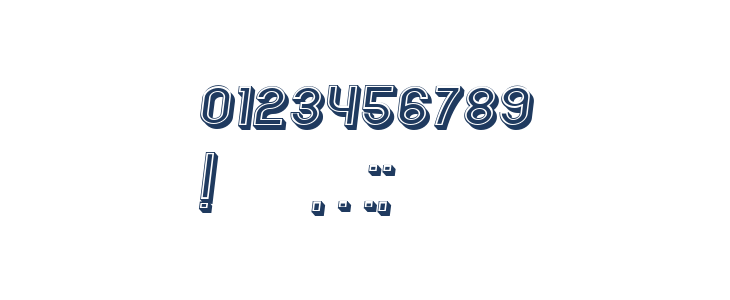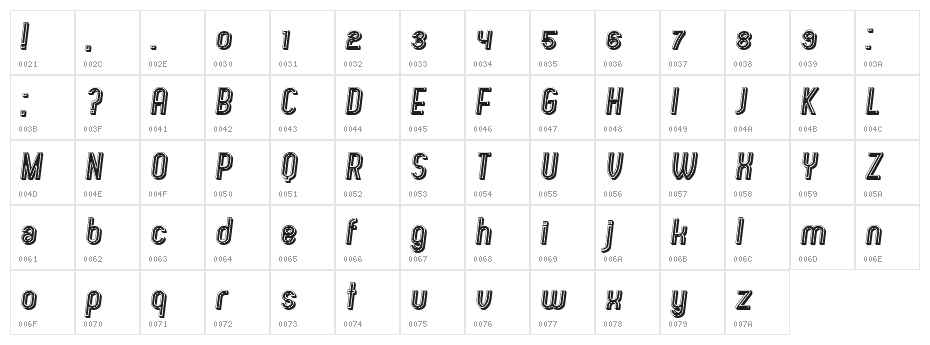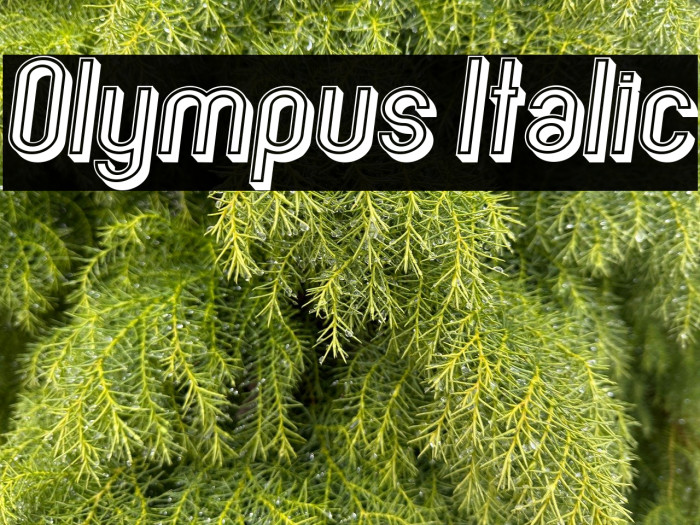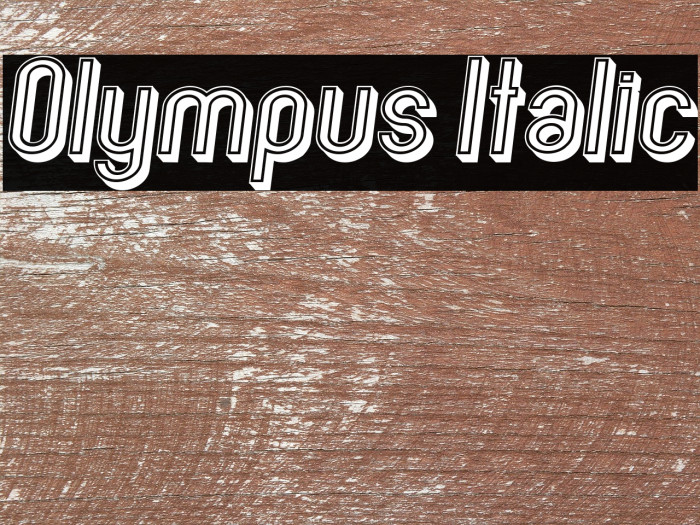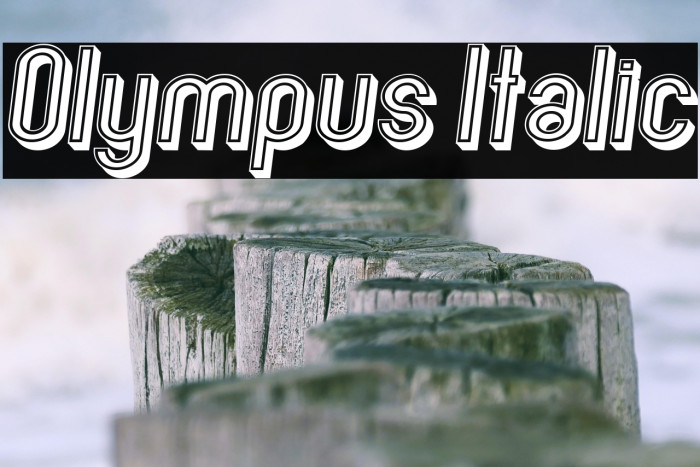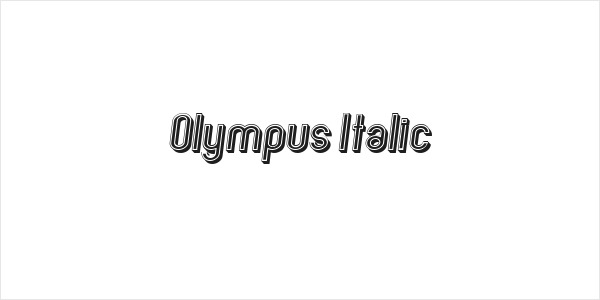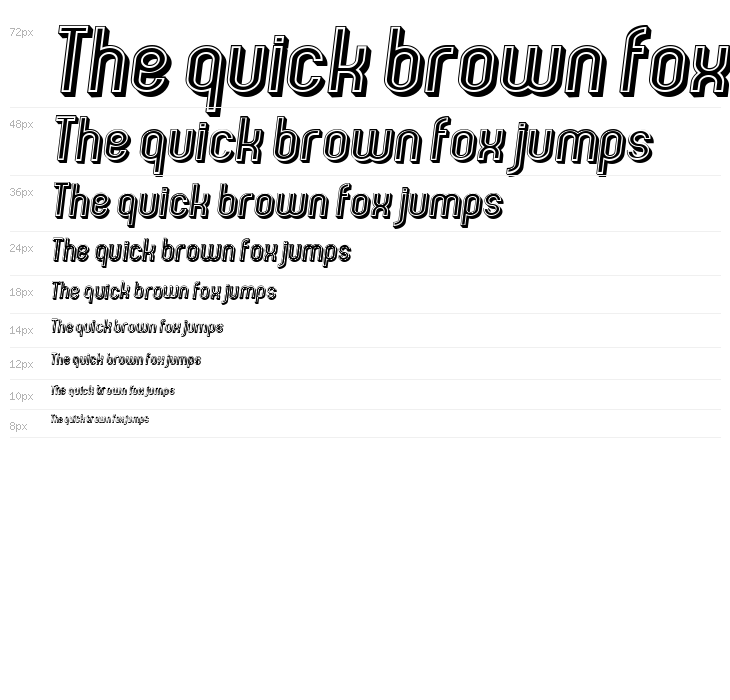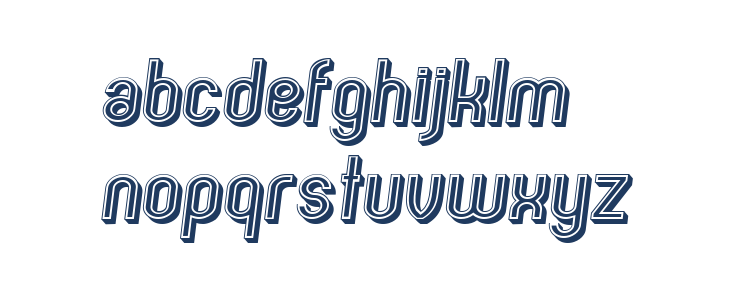
Olympus Italic Font
Olympus Italic Description
This font features a bold, italicized style with a distinct three-dimensional effect created by its shadowed outline. The uppercase and lowercase letters are consistent in their angular, geometric design, giving a modern and dynamic appearance. The numbers and special characters maintain this cohesive look, ensuring versatility across various uses. The font's strong presence is enhanced by its thick strokes and shadowing, making it ideal for attention-grabbing designs.
| Proposed Projects | Ideal for posters, headlines, logos, and branding materials where a strong, modern impression is desired. |